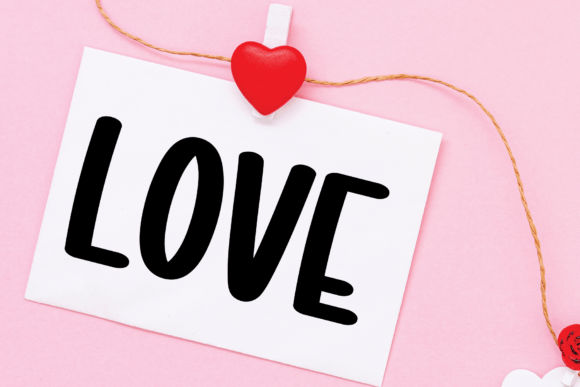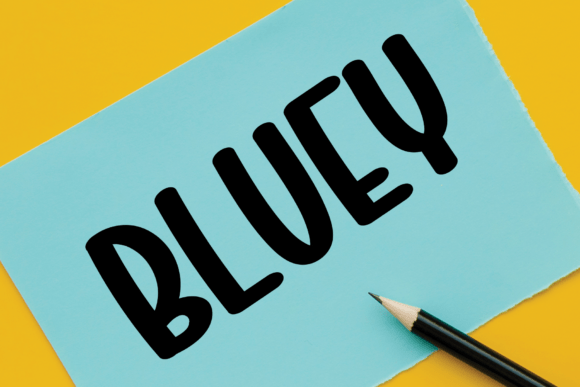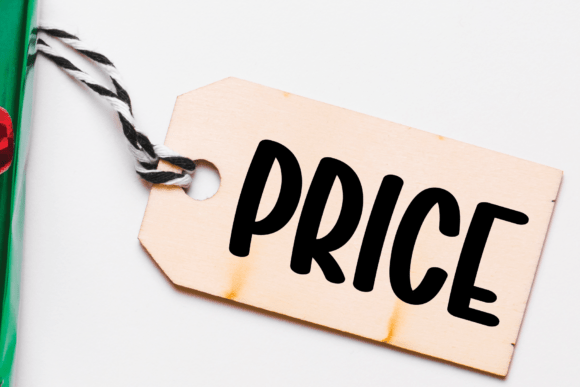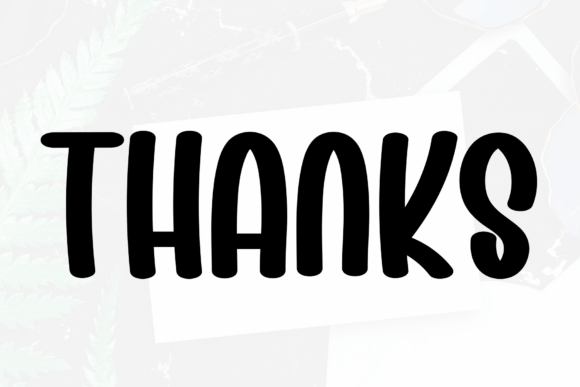
Introduction to Rodeo Woodland Font
Rodeo Woodland is a handwritten font that looks like it was drawn with a marker.
Having a relaxed and sporty feel, it is very suitable for branding, logos, wedding supplies, greeting cards, fashion, lookbooks, marketing promotions, and whenever you want your design to look luxurious and elegant but still casual .